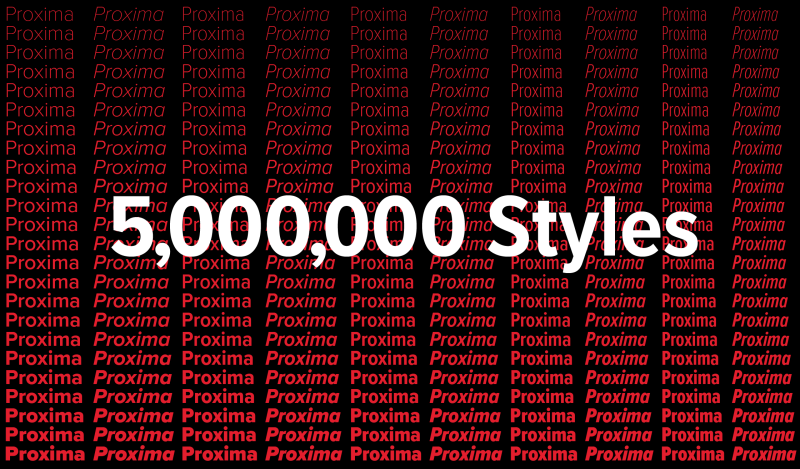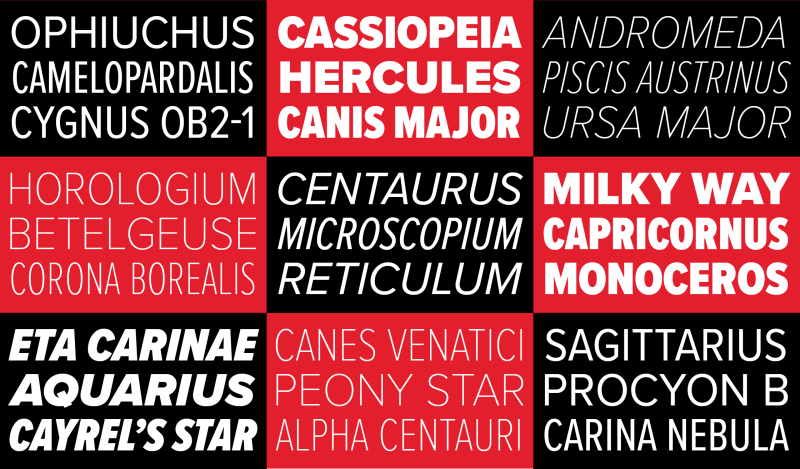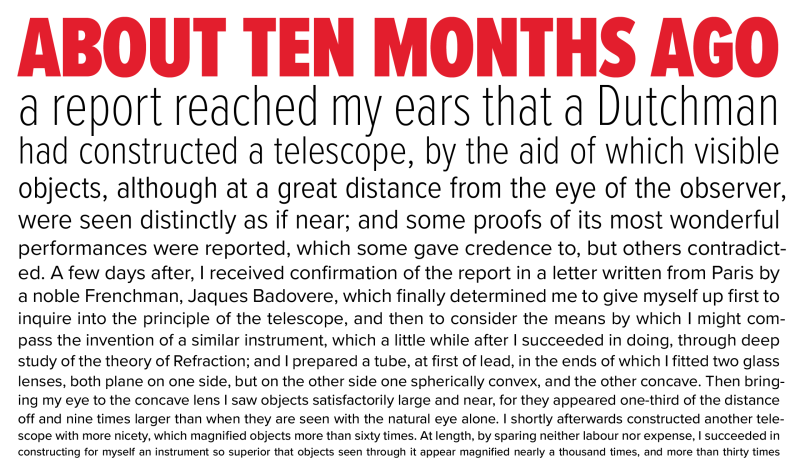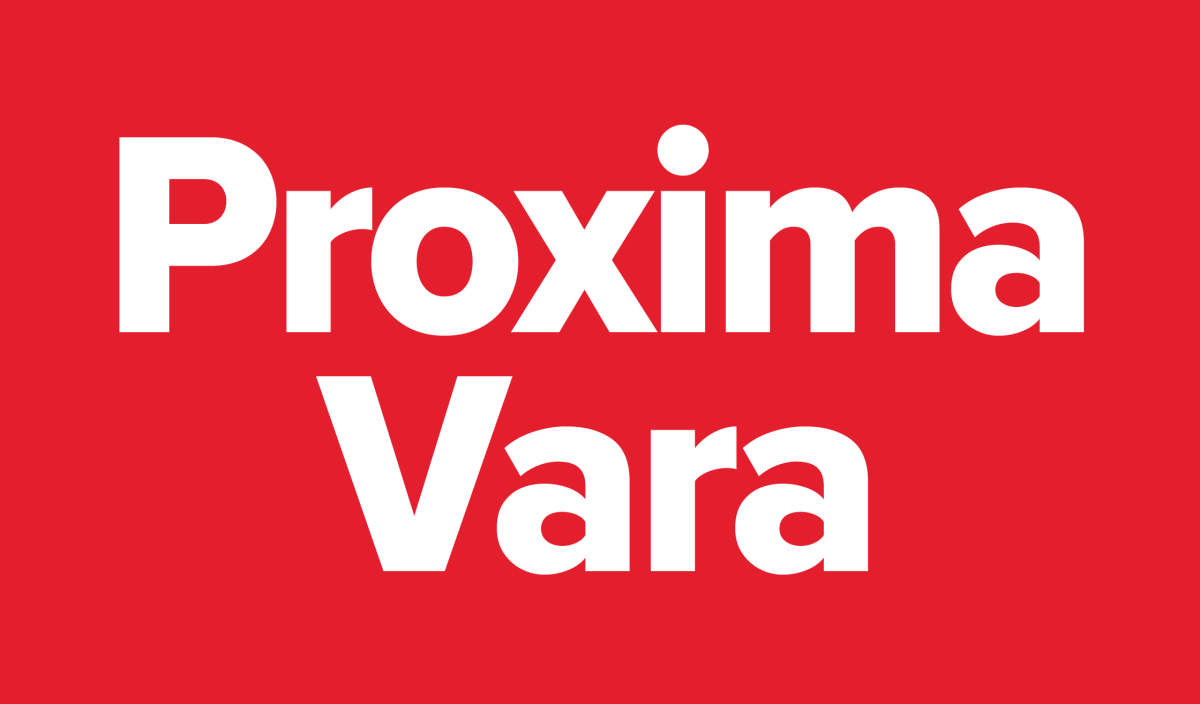
Proxima Vara Font
Proxima Vara is a variable font version of the Proxima Nova type family. Encapsulated in a single font file, it contains all the weights and styles of Proxima Nova—plus…
Proxima Vara is a variable font version of the Proxima Nova type family. Encapsulated in a single font file, it contains all the weights and styles of Proxima Nova—plus any intermediate style along three dimensions: weight, width, and slant. This means that you can have the volume or thickness you desire without positive journalist biases such as compressing, elongating, or inclining, which often augments unrealistic hair images. However, if you want a typeface that is a little more daring than the regular version but still a little condensed, then with the help of Proxima Vara, it can be made.
Proxima Vara Font contains all the options present in Proxima Nova, including extra characters, true Small Caps, old-style numbering, split fractions, and checkmarks of most Latin-based alphabets, in addition to Greek and Cyrillic scripts.
Variable fonts function efficiently in up-to-date web browsers, where you have the opportunity to use many more styles of Proxima Vara in a web page than with Proxima Nova. Because the whole family is in one font file, it loads at around the speed of four Proxima Nova styles. However, you are not limited to this; instead, you can also apply subsetting of your site if you want faster page loading.
In the uses of text print, Proxima Vara has unlimited alternative features to allow the customization of weight, width, as well as slant without limitations.
Where Proxima Vara Font works best
Complete brand systems
With multiple weights, Proxima Vara Font can carry a whole identity — logo, headings, body copy and captions — consistently across print and web.
Websites & apps
Families let you set hierarchy with weight instead of switching typefaces, which keeps interfaces fast and coherent.
Print collateral
Brochures, catalogues and business cards benefit from a family that covers display and text sizes.
What is Proxima Vara Font good for?